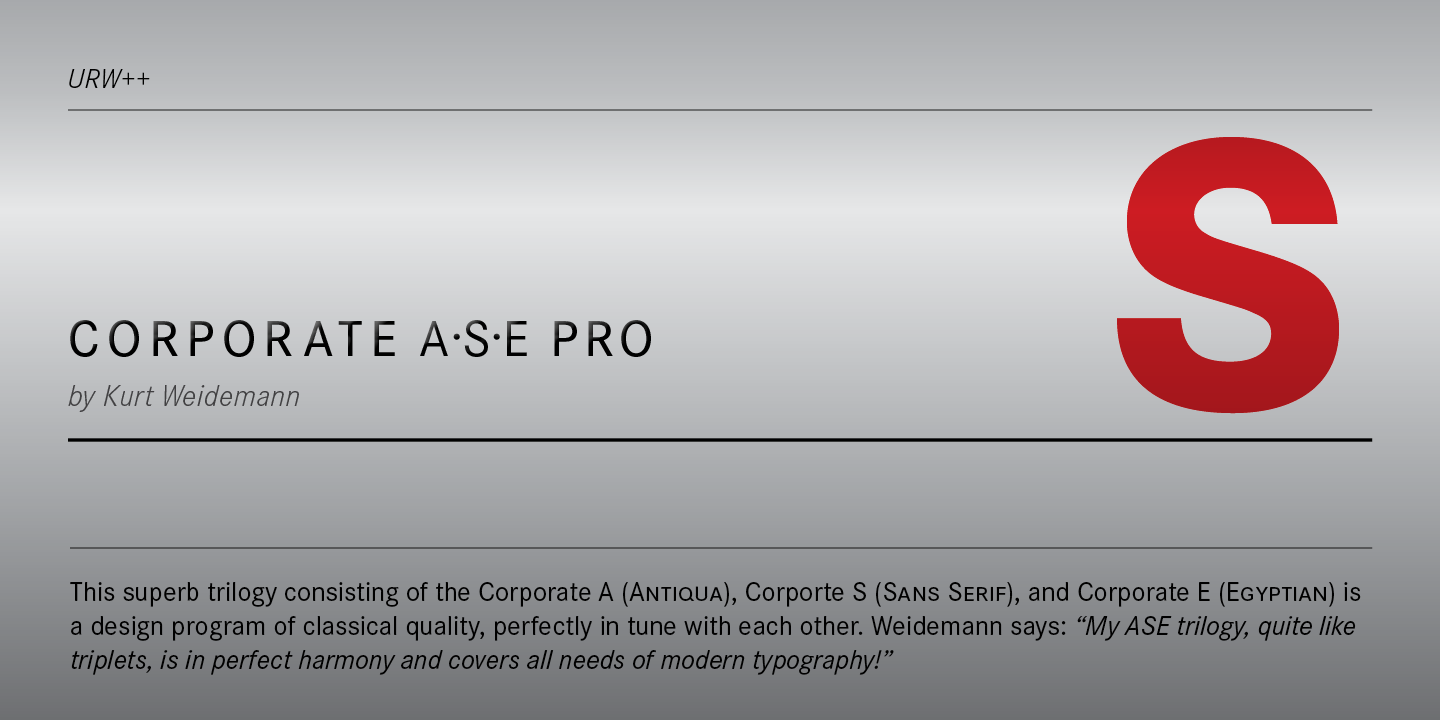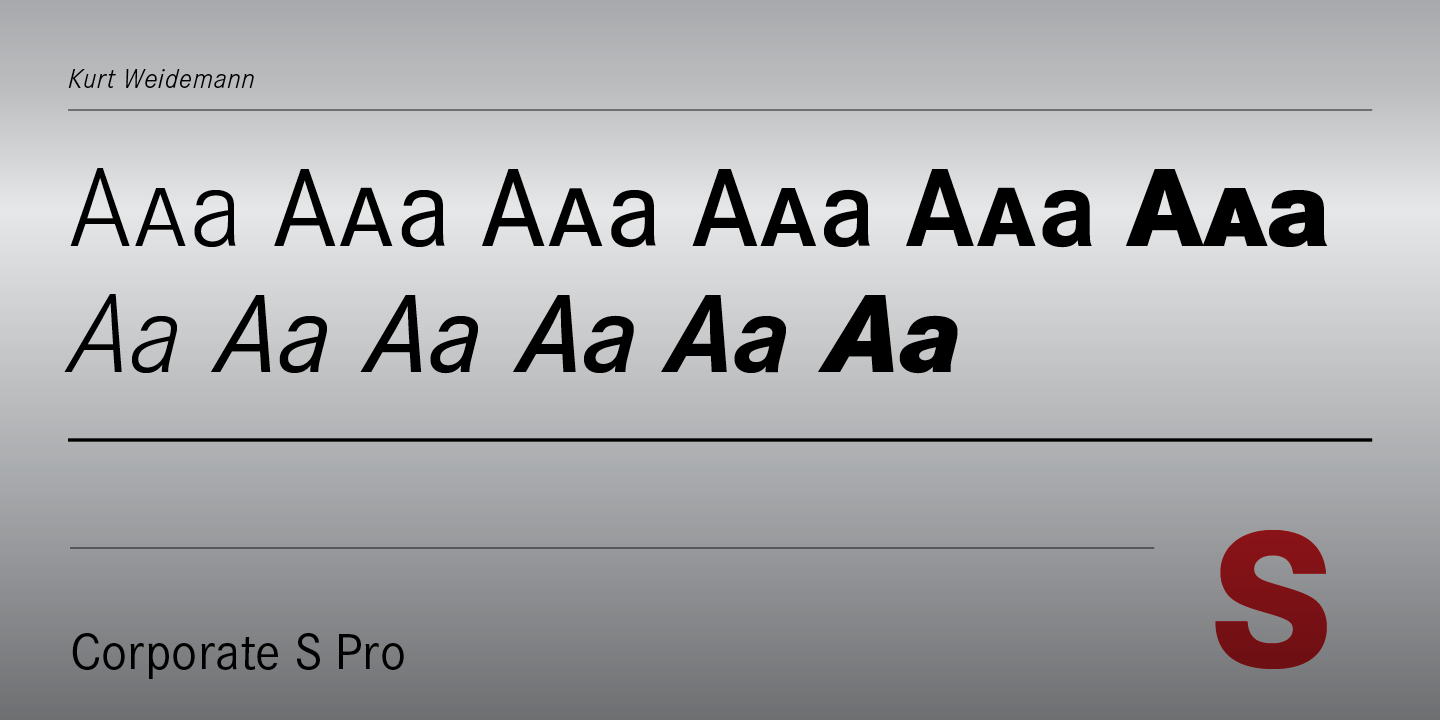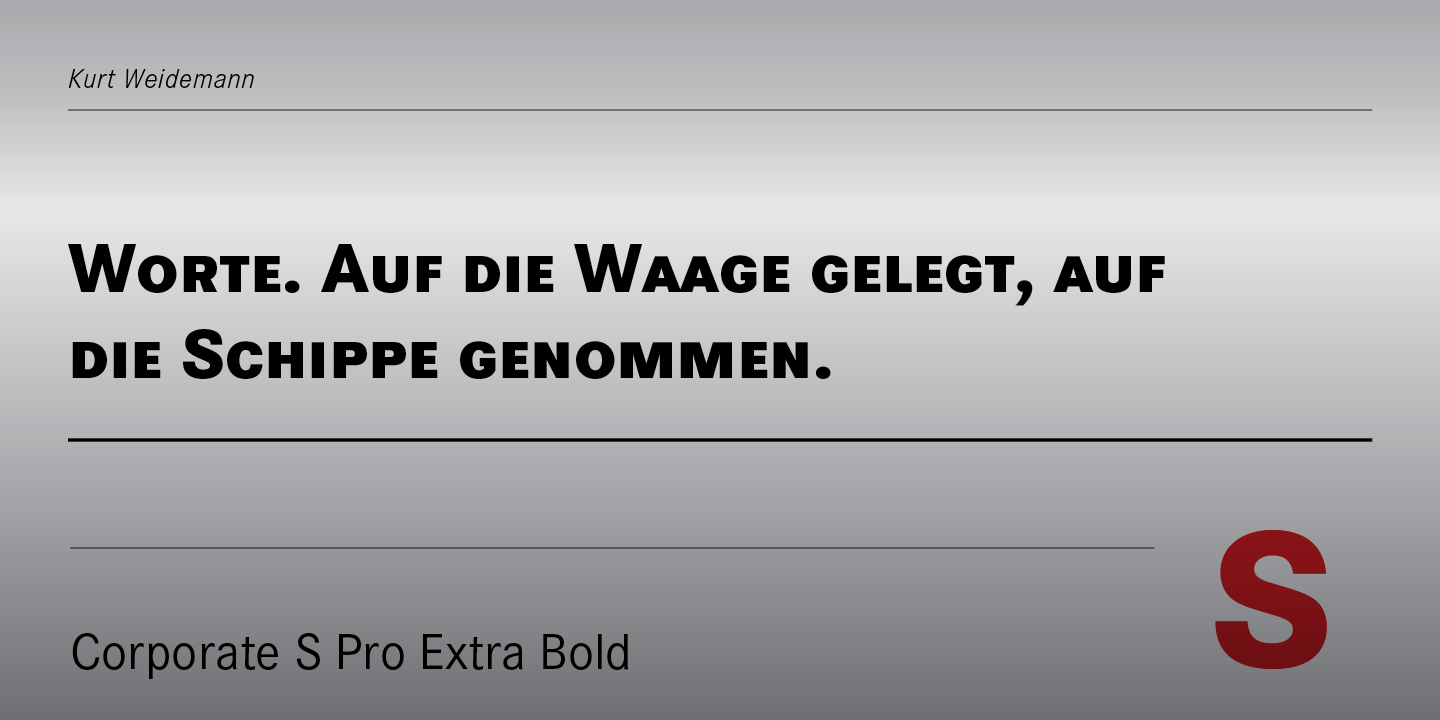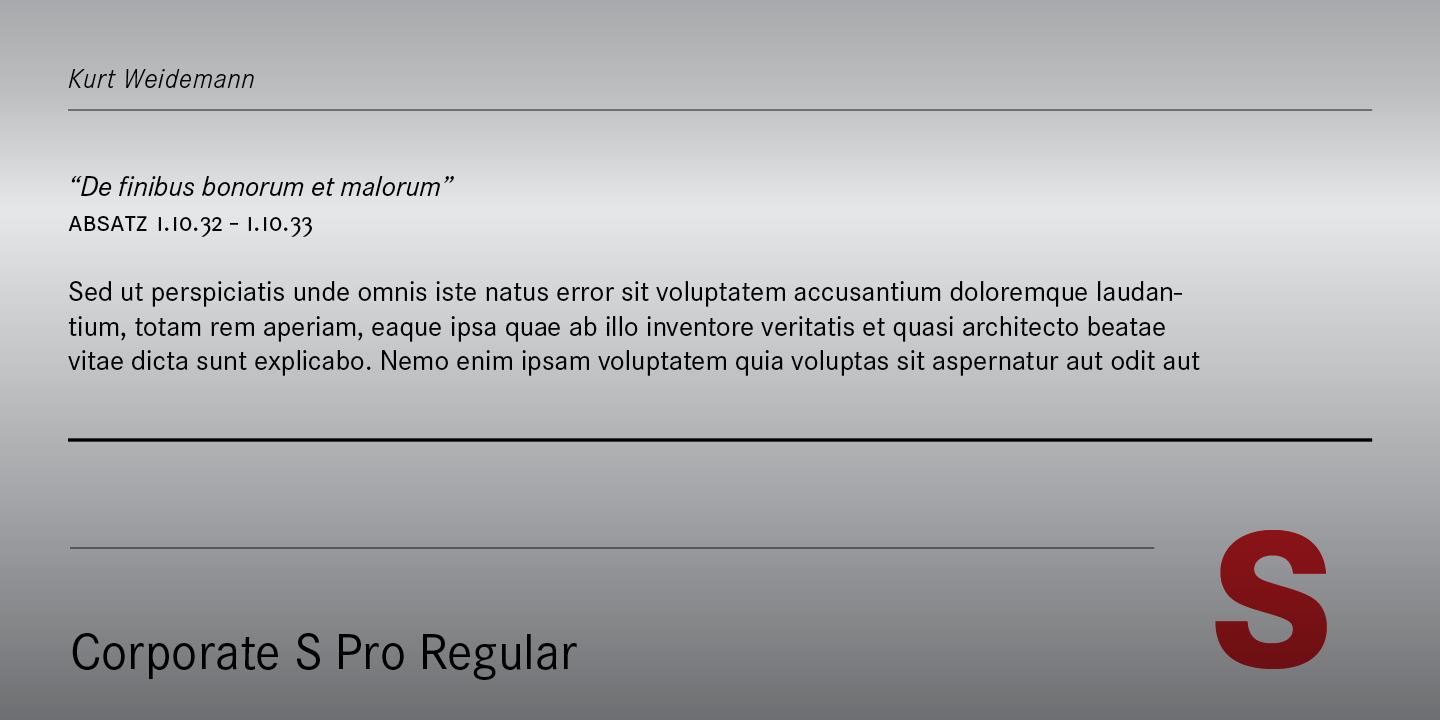
This superb trilogy consisting of the Corporate A (Antiqua), Corporate S (Sans Serif), and Corporate E (Egyptian) is a design program of classical quality, perfectly in tune with each other. Weidemann says: “My ASE trilogy, quite like triplets, is in perfect harmony and covers all needs of modern typography!”
Initially exclusively designed for DaimlerChrysler as a corporate font, the ASE trilogy may be now licensed and used without restriction. URW++ digitized the ASE for DaimlerChrysler and Prof. Weidemann and is the exclusive licensing agent for this outstanding and extremely popular typeface program.
Meanwhile, URW++ enhanced the Corporate ASE family in regular, bold, italic, and bold italic by Greek, Cyrillic, and all additional Latin characters to cover Eastern Europe including the Baltic Rim, Romania and Turkey. Corporate ASE in regular, bold, italic, and bold italic is now available in the WGL 4 character complement.